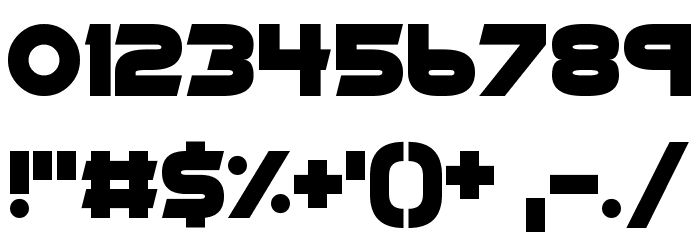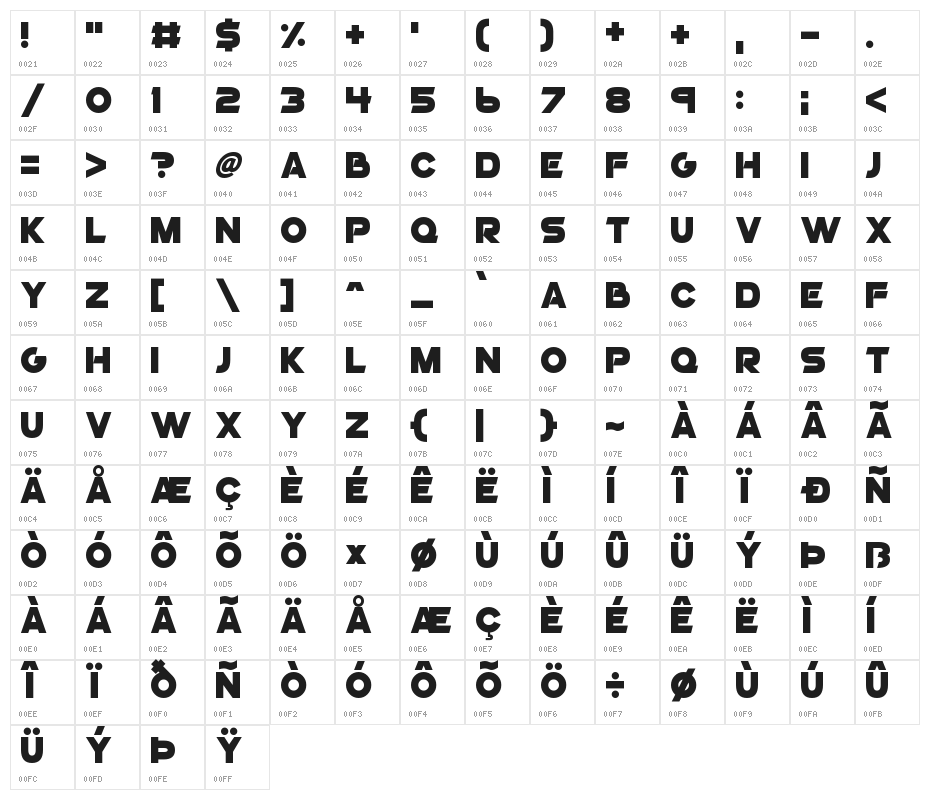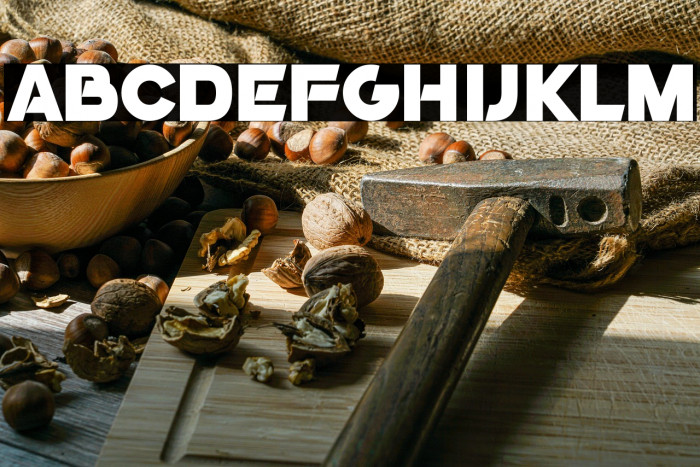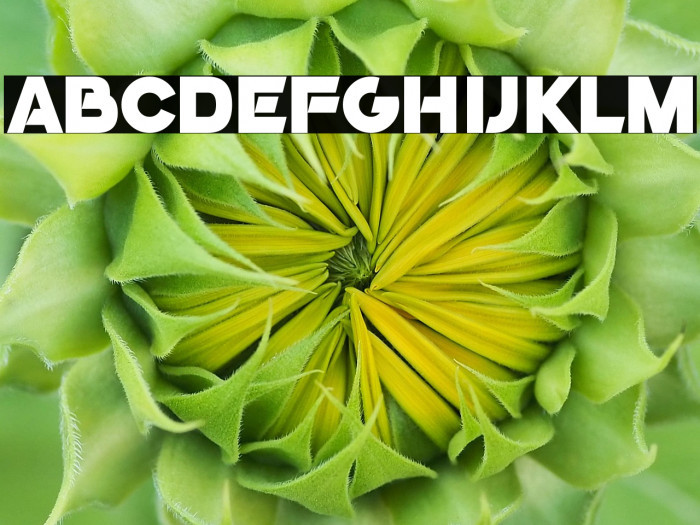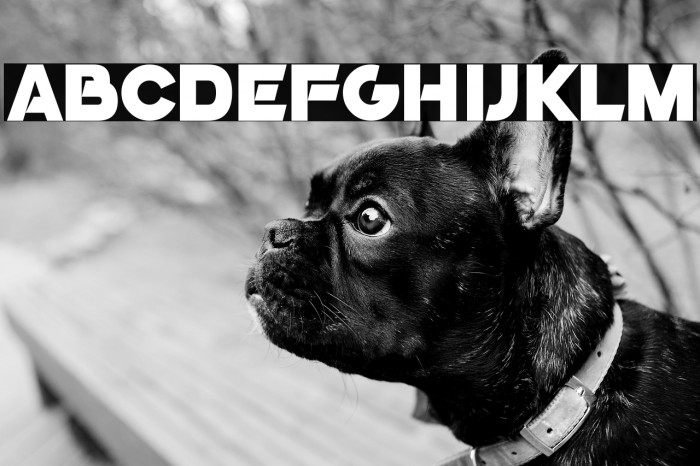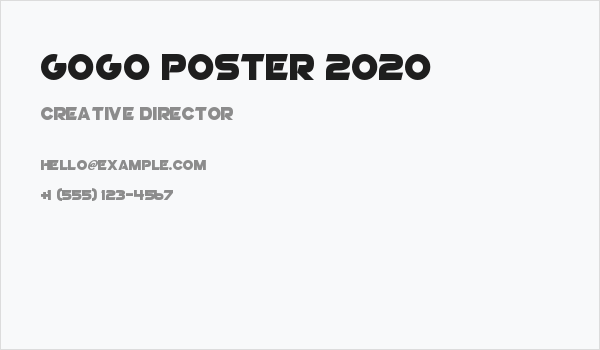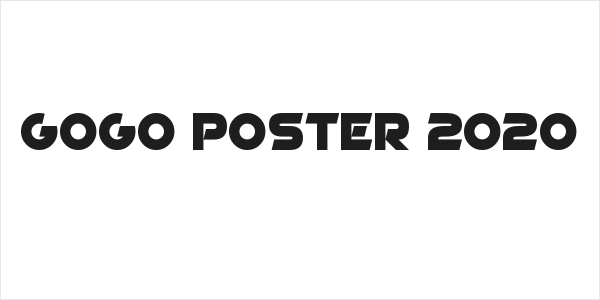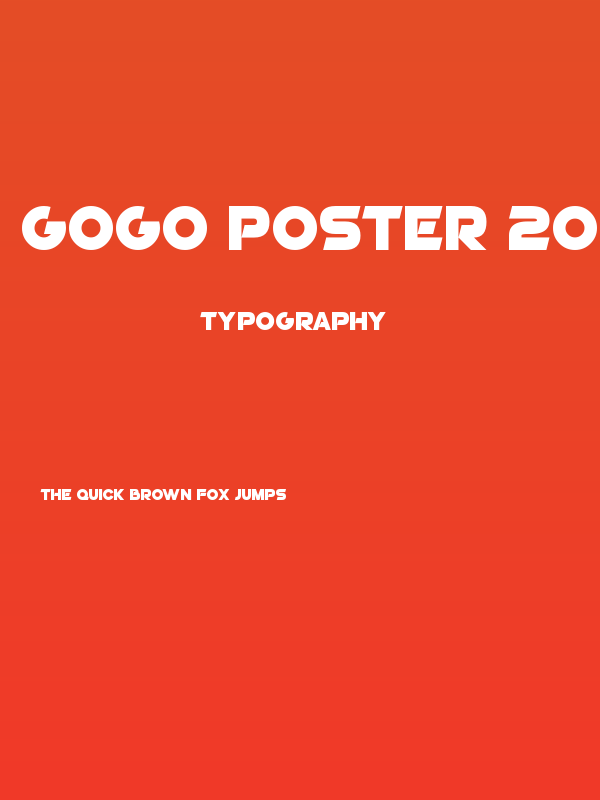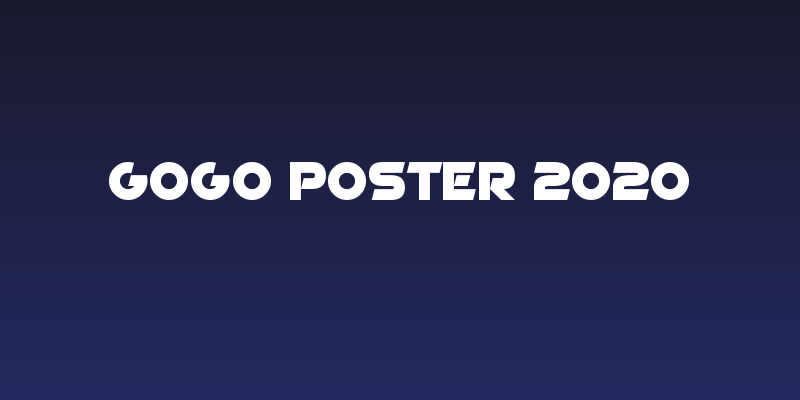
GoGo Poster 2020 Font
GoGo Poster 2020 Description
This bold, geometric typeface features strong, angular lines and a modern aesthetic. The uppercase letters are characterized by their blocky, robust forms, while the lowercase letters maintain a consistent style with slightly more rounded edges. The numerals are equally bold, ensuring visibility and impact. Special characters are designed to match the overall boldness and geometric style, making them suitable for attention-grabbing headlines and posters. The font's design is clean and straightforward, with a focus on clarity and strength.